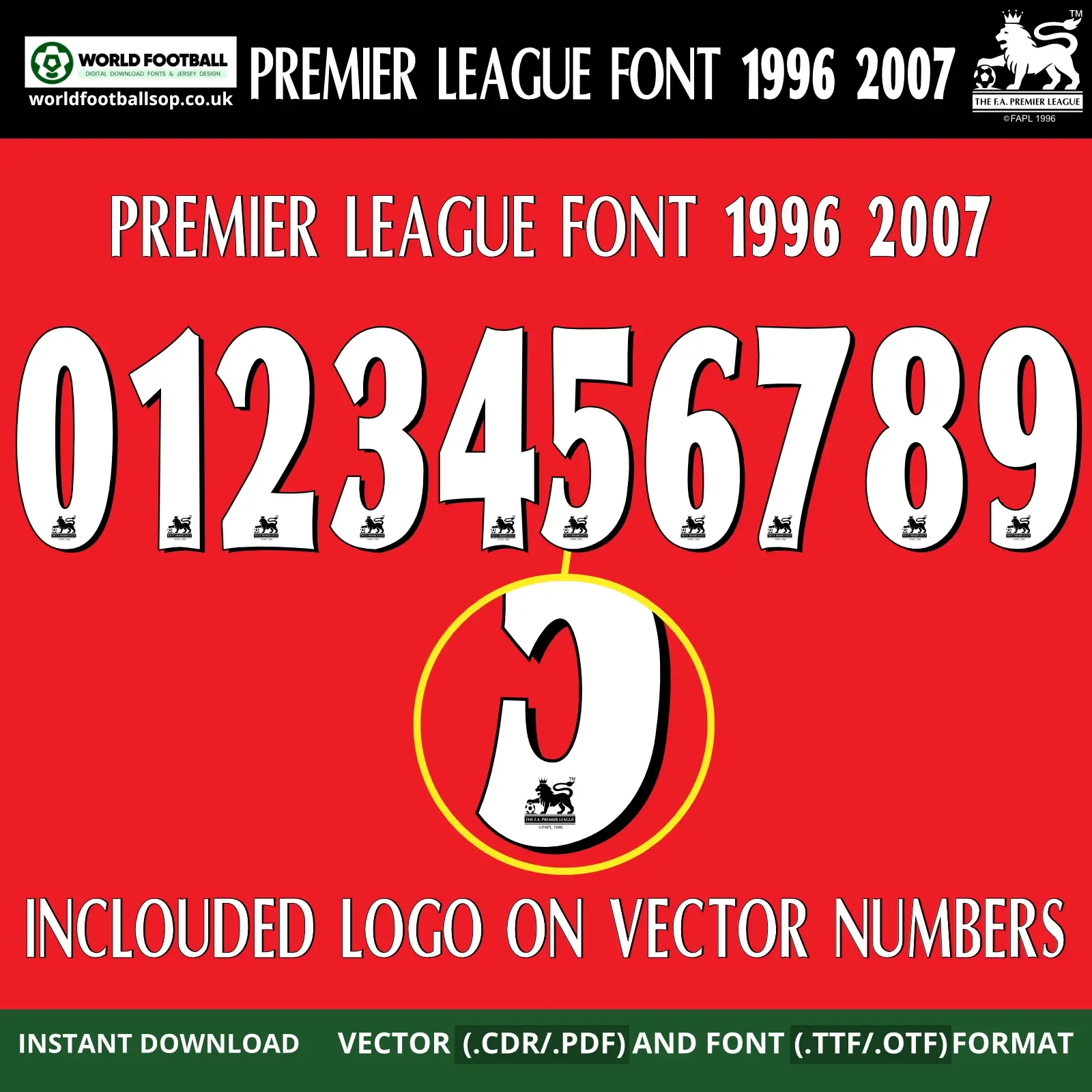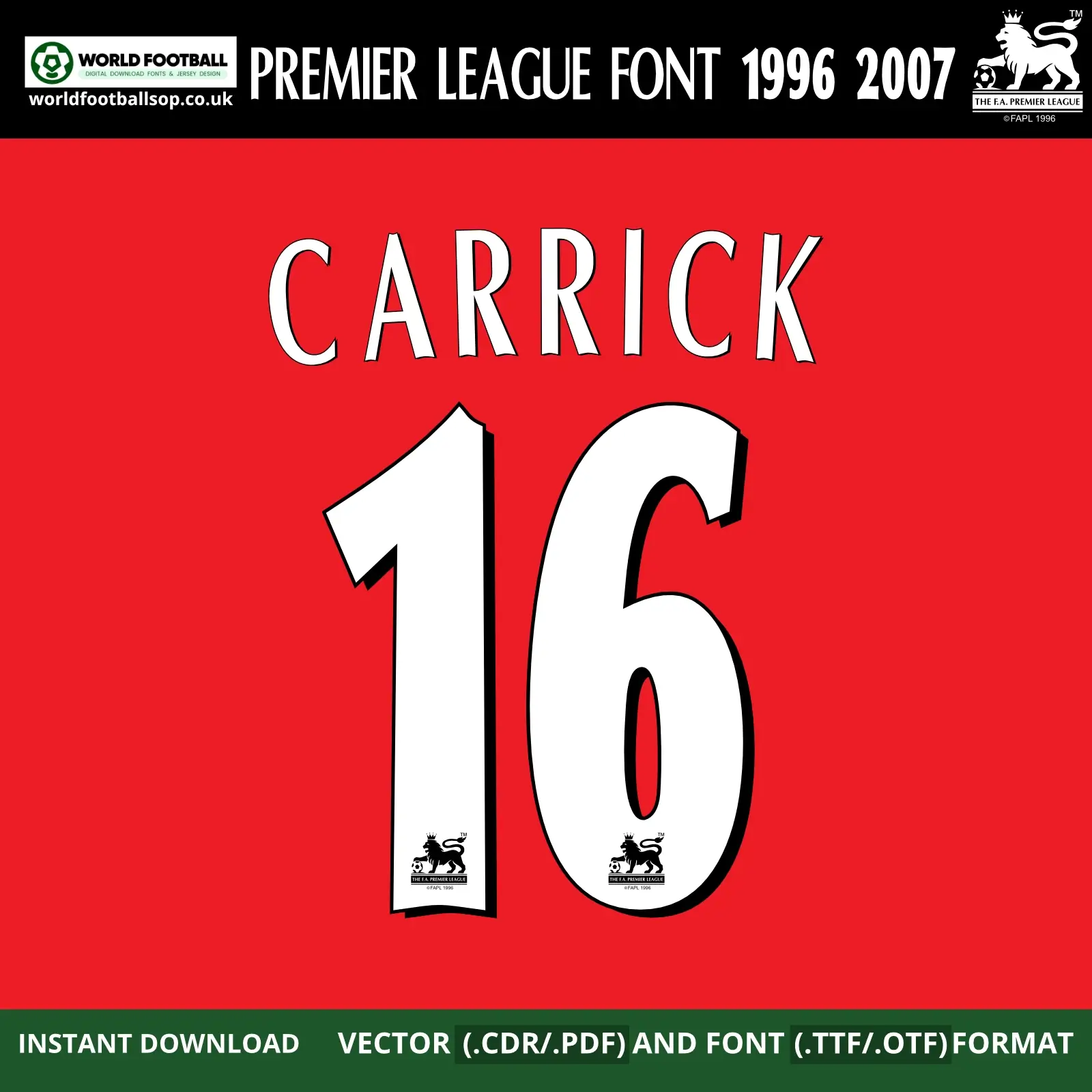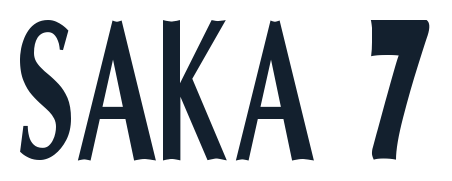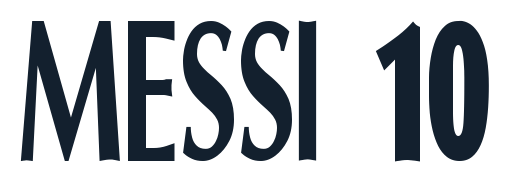
Premier League Font 1996-2007 – Golden Era Typography
The Premier League Font 1996-2007 captures the legendary block lettering that defined English football's most iconic era. This tall, rectangular typeface with rounded shoulders and subtle top cut-outs appeared on every Premier League kit from Manchester United's 1999 Treble to Arsenal's 2004 Invincibles. The white-on-red presentation perfectly evokes the era's sponsor patches and club sponsor logos.
Perfect for retro kit recreation, vintage designs and nostalgia projects, these files let you create authentic namesets featuring players from the Ferguson, Wenger and Mourinho years. Vector numbers include the classic Premier League lion badge at the base, while TTF/OTF fonts remain clean for modern software compatibility.
Full uppercase A-Z alphabet for player names
Numbers 0-9 in authentic 1996-2007 Premier League style
Authentic proportions: Matches the exact block style used across all 20 Premier League clubs
Era-specific details: Includes Premier League lion logos positioned exactly as on original kits
Multi-club compatibility: Works perfectly with Manchester United, Arsenal, Chelsea, Liverpool retro templates
Custom retro jerseys (CARRICK 16, HENRY 14, GIGGS 11), vintage match graphics, club museum displays, nostalgic social media content, and football design projects celebrating English football's golden decade.